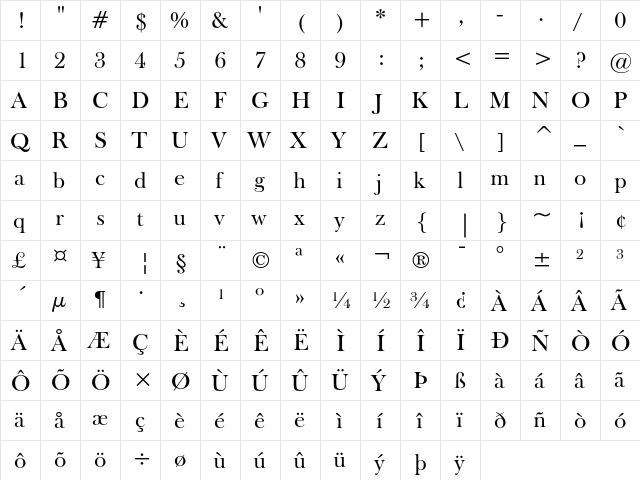
Fry's Baskerville Regular
Design Context for Fry's Baskerville Typeface
Fry's Baskerville is a composed and adaptable typeface that performs quietly and consistently across a wide range of design contexts.